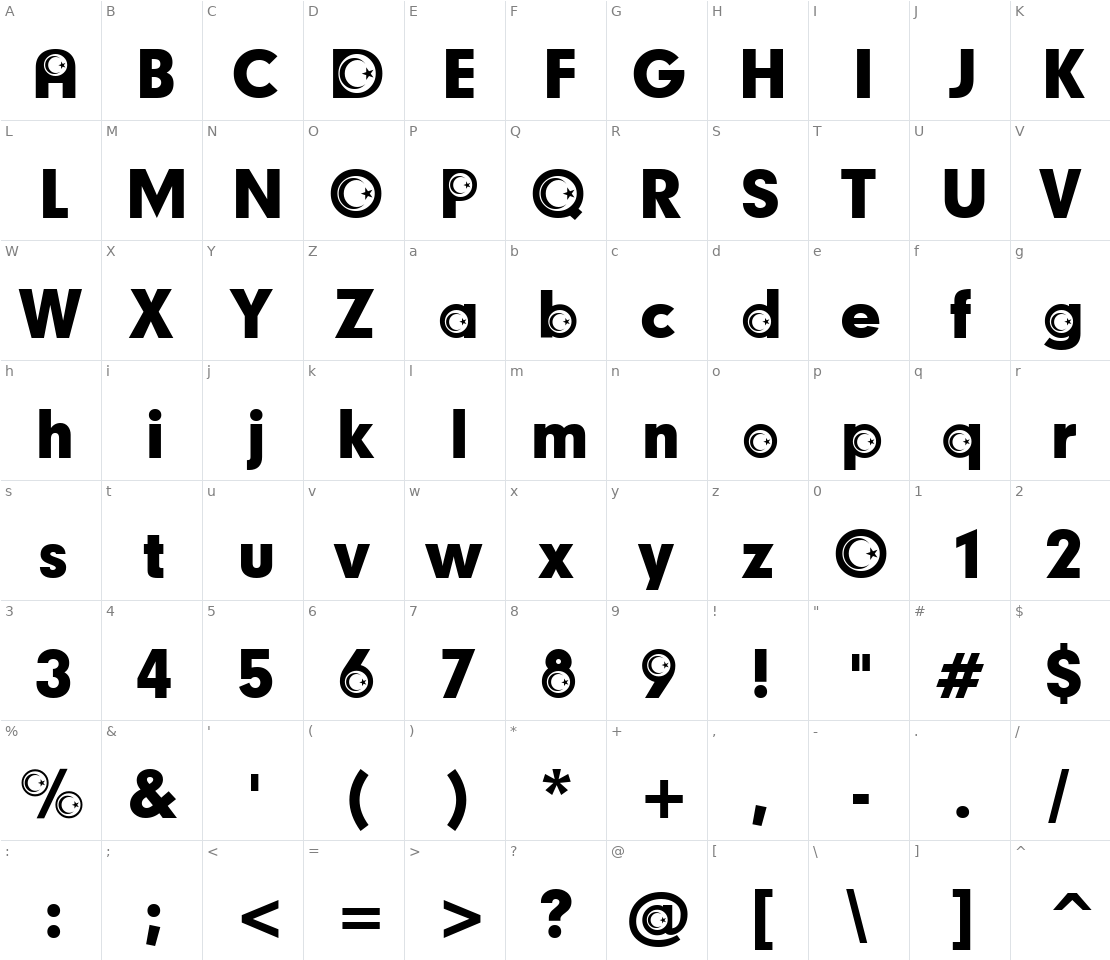
Participants - A 13 Font Set
Participants is a heavy, geometric display family from Ray Larabie spanning 13 styles, each with a quirky, almost toy-like personality. The letterforms are bold and blocky with playful proportions and decorative touches that keep things from feeling too serious. It's a headline face through and through, built for posters, packaging, and branding where you want something chunky and distinctive with room to mix and match across the set.